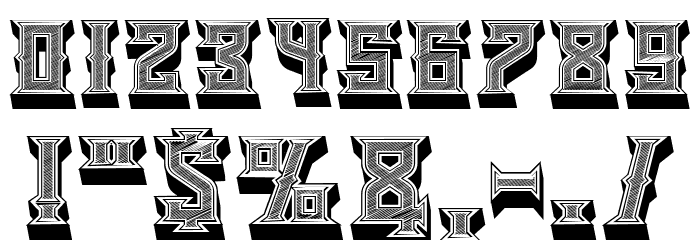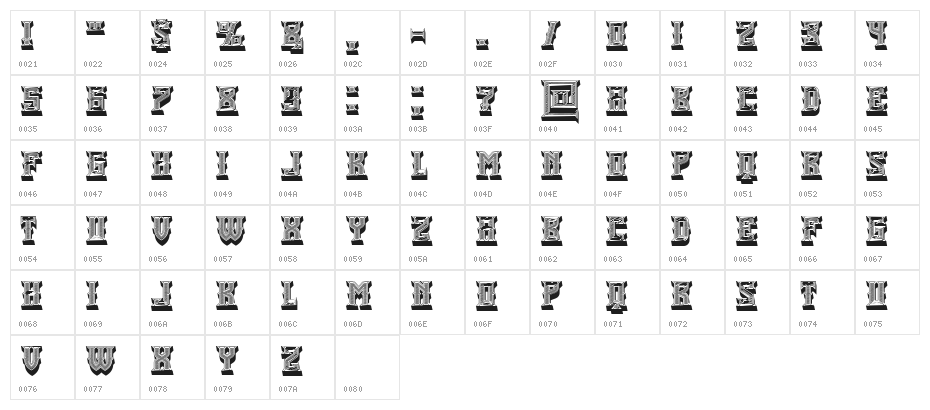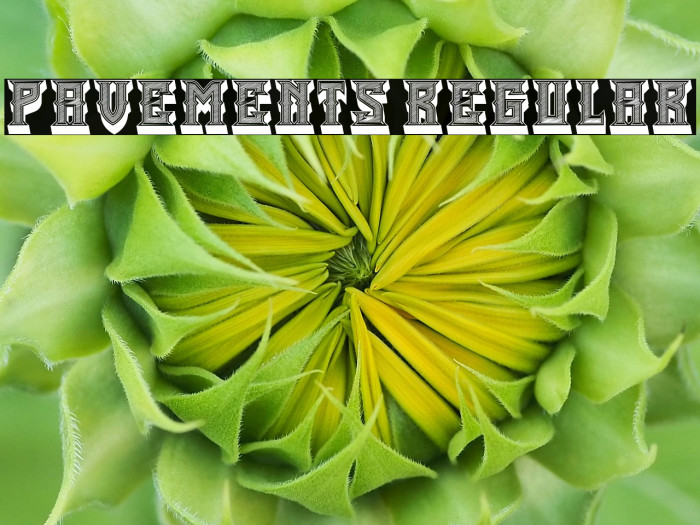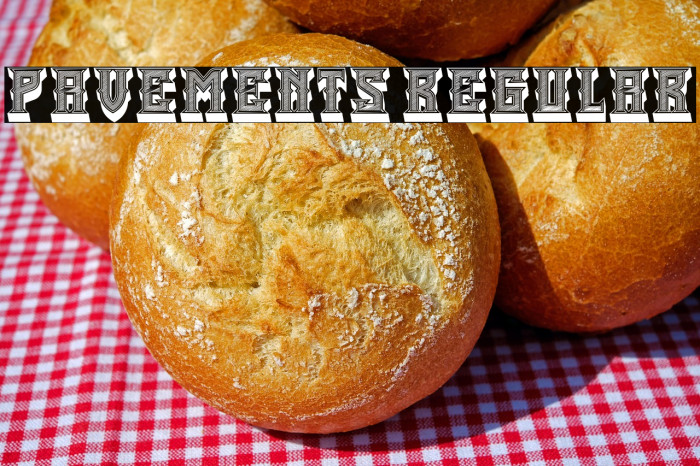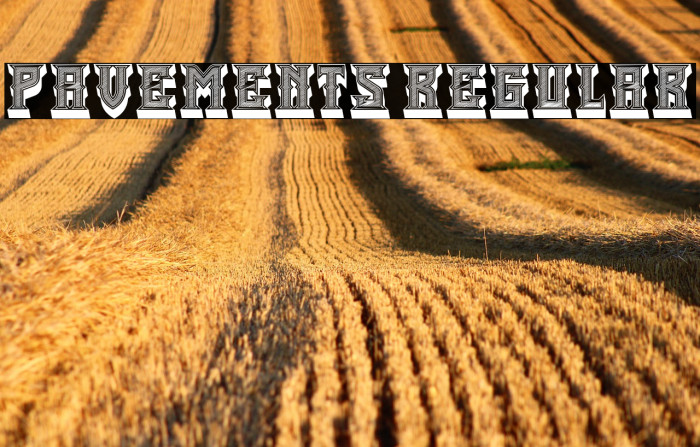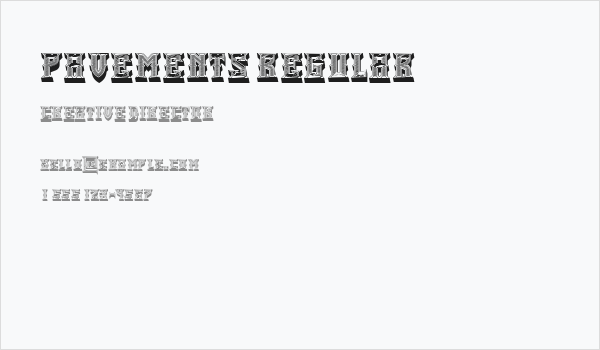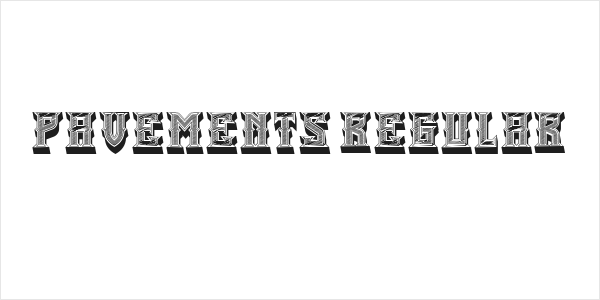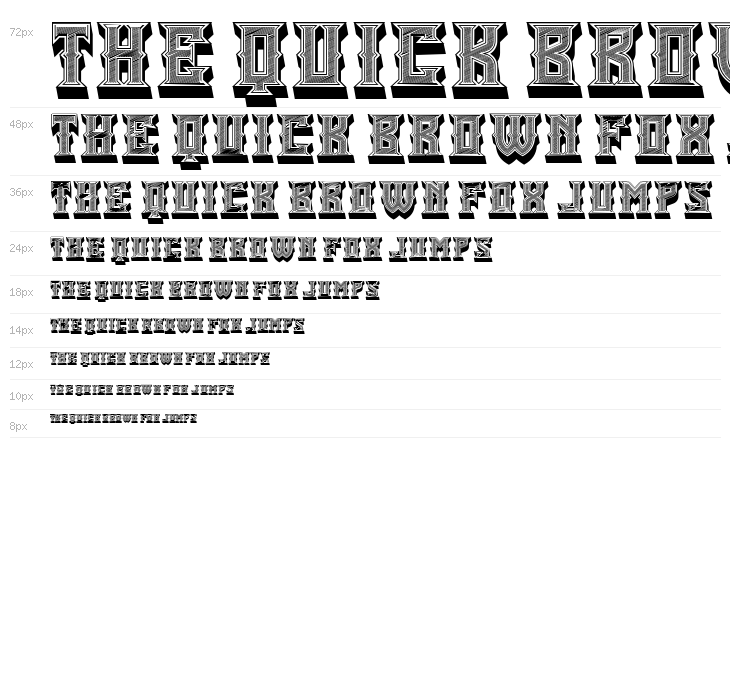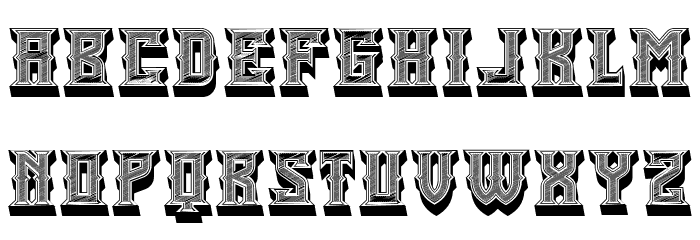
Pavements Regular Font
Pavements Regular Description
This font features a bold, decorative style with a three-dimensional appearance. Each character is designed with intricate detailing, including inner lines and shading that create a sense of depth. The font has a strong presence, making it ideal for eye-catching designs. The uppercase letters are particularly striking, with sharp angles and a blocky structure. The numerals and special characters maintain the same bold and detailed aesthetic, ensuring consistency across all elements.